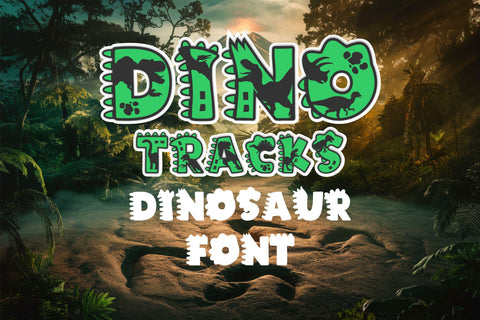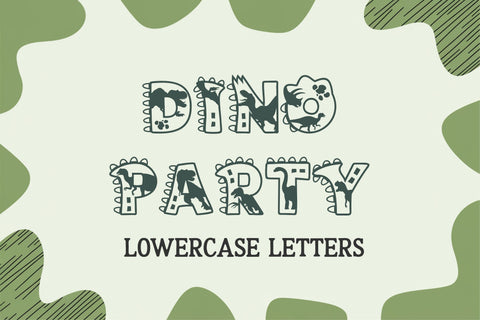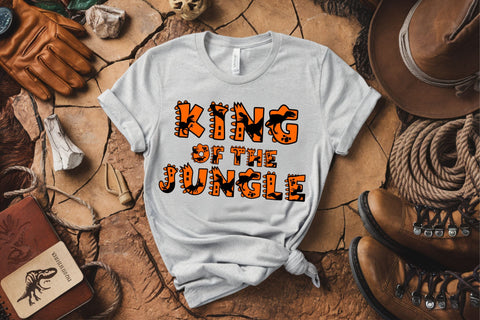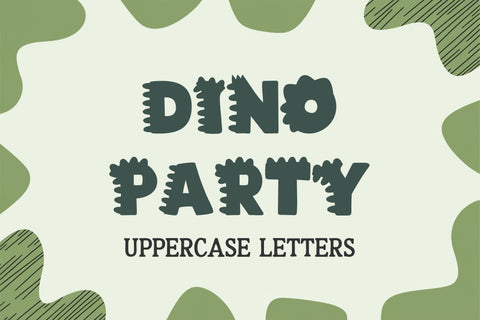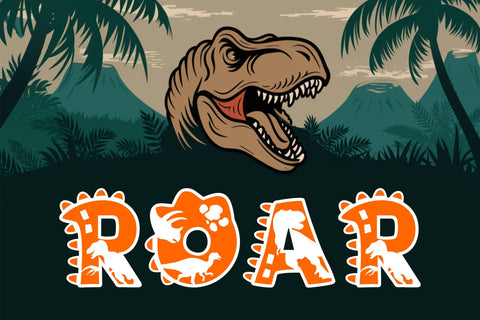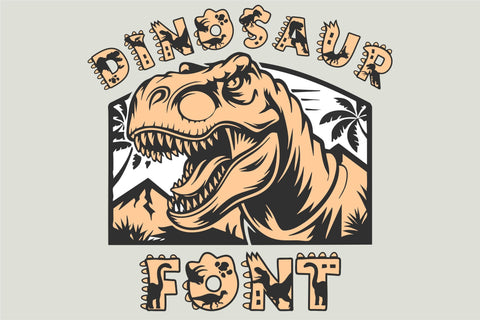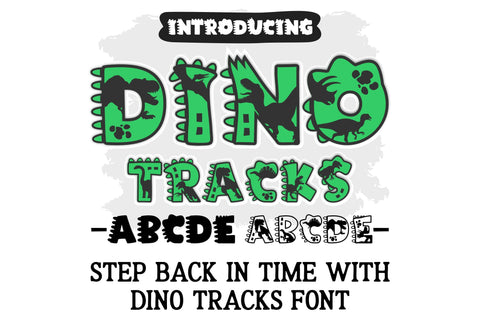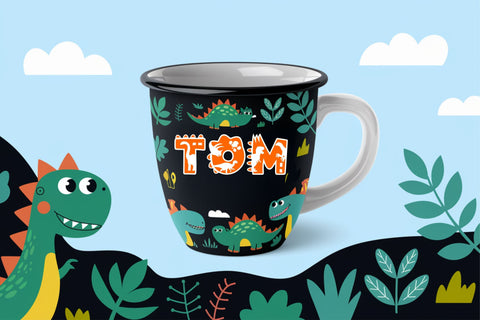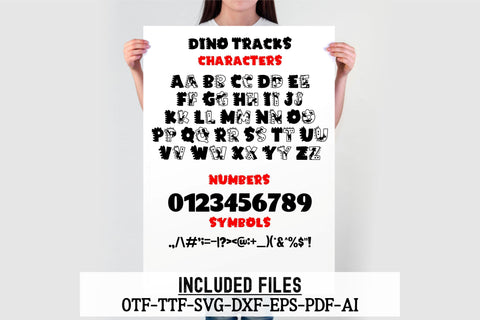
The Dino Tracks Font Duo is a 2-in-1 prehistoric-inspired typeface, perfect for Cricut, Silhouette, and DIY crafting! This unique duo font includes two styles – one featuring playful dinosaur silhouettes and fossil details, and the other a bold, spiky dino letter style. Whether you're designing kids' birthday party decorations, adventure books, nursery prints, T-shirts, or custom projects, this font duo is ready to stomp into your creations!
With dino spikes, fossil imprints, and Jurassic-inspired textures, Dino Tracks brings the world of dinosaurs to life! Create prehistoric magic with these two fun fonts that work perfectly together for layered designs, mixed typography, and eye-catching graphics.
✔ Full Alphabet (A-Z), Numbers, and Symbols
✔ Bonus Dinosaur Elements – Fossil textures, dino claws, and prehistoric details
✔ High-Quality, Fun Design – Ideal for kids & dinosaur lovers
The Dino Tracks Font Duo gives you two dynamic dinosaur fonts in one package, perfect for creative projects that need a fun, prehistoric touch!